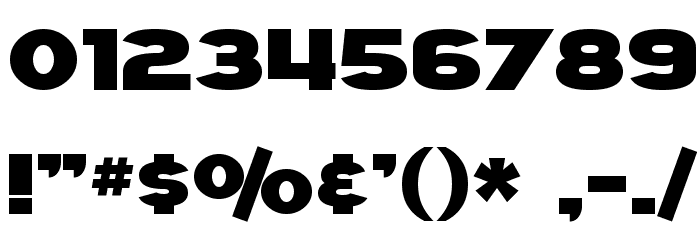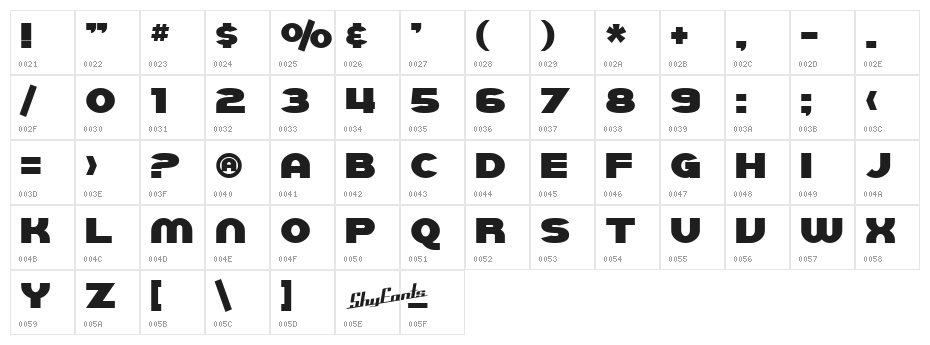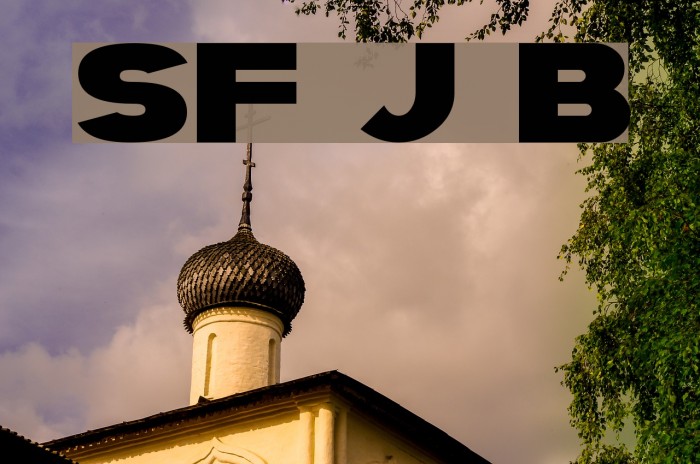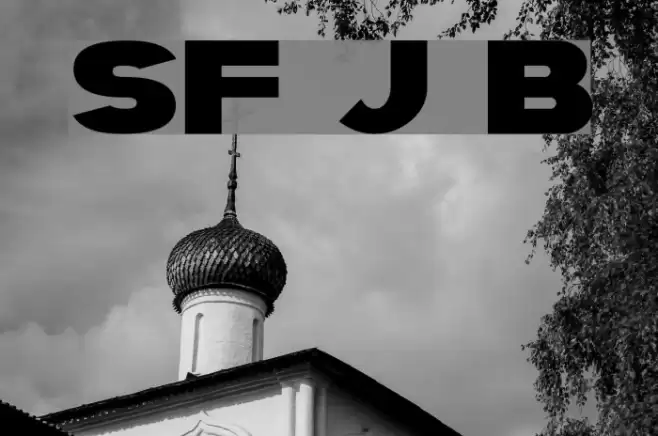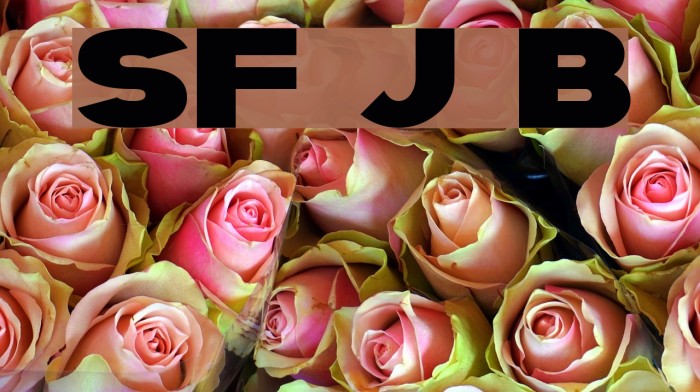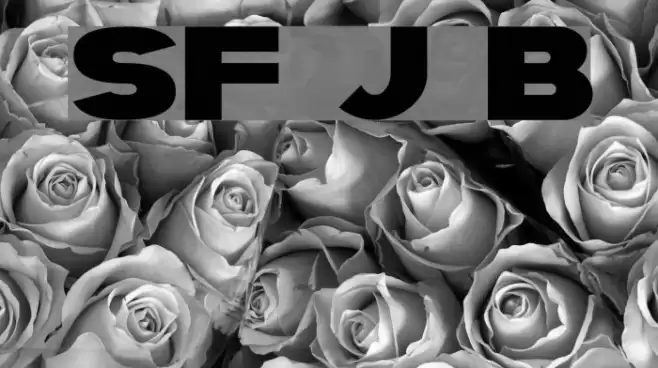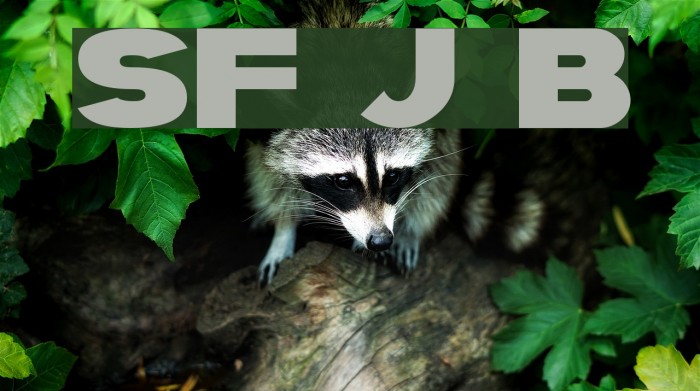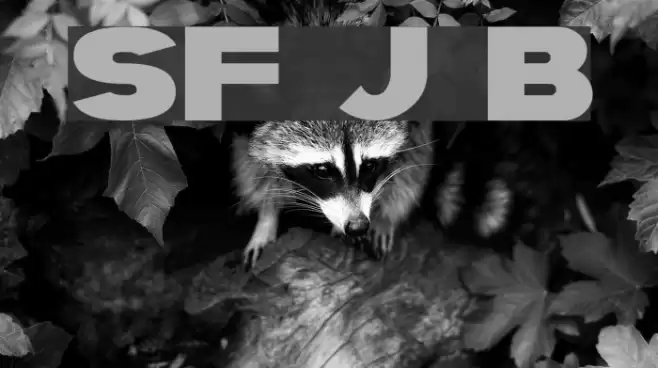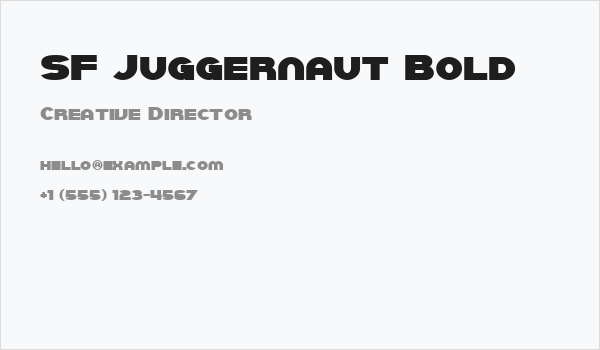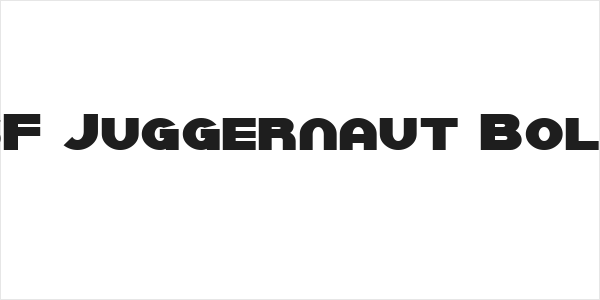
SF Juggernaut Bold Font
SF Juggernaut Bold Description
This font features a bold and robust design with a strong geometric influence. The characters are wide and have a consistent stroke thickness, giving them a powerful and impactful appearance. The rounded edges and uniform line weight contribute to a modern and clean aesthetic. The font is highly legible and makes a strong visual statement, suitable for various design applications. The uppercase and lowercase letters maintain a cohesive style, while the numerals and special characters are designed to complement the overall look.